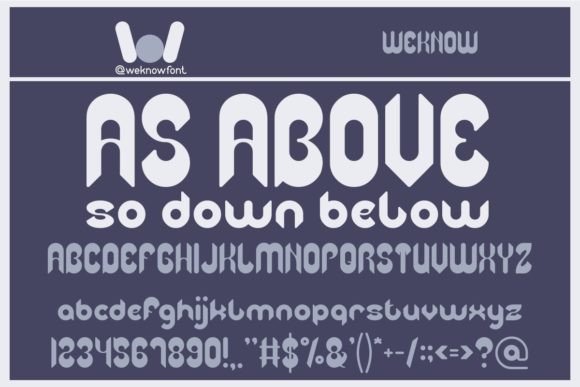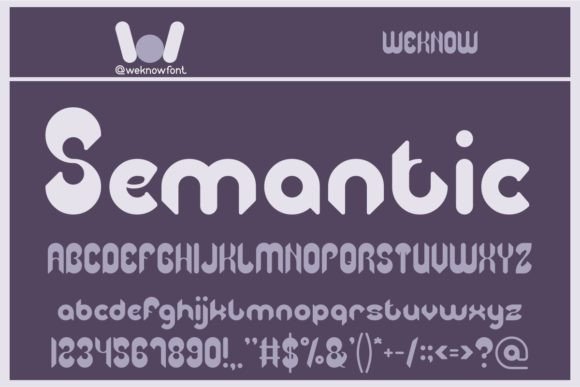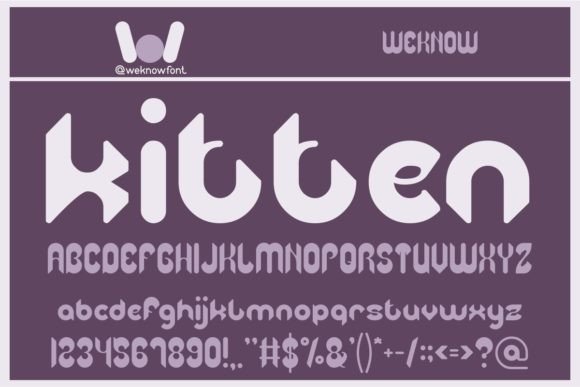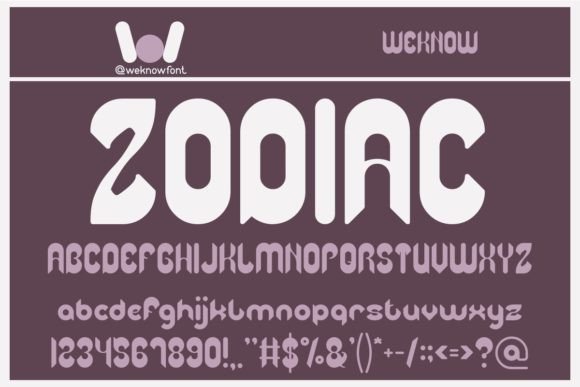
Introduction to High and Low Font
You’re scrolling through your social media feed, and suddenly, you come across a visually stunning graphic that catches your eye. The bold, modern typography is what sets it apart from the rest. The font used is none other than the trendy High and Low Font, a perfect blend of style and sophistication. Its unique characteristics make it a valuable asset for any designer looking to elevate their high-quality creative projects.
Whether you’re working on a logo, poster, or social media graphic, High and Low Font is sure to make your design stand out from the crowd. Its fresh, contemporary look is sure to impress, and its free availability makes it a must-have in any designer’s toolkit.
Key Features of High and Low Font
- Designed with a unique aesthetic, blending modern and vintage elements to create a distinctive and eye-catching visual identity.
- Perfect for designers working on a creative project that requires a touch of elegance and sophistication, such as branding, advertising, and editorial design.
Honest Review: High and Low Font
I recently came across the High and Low Font and was excited to dive in and see what it had to offer. As a designer, I’m always on the lookout for high-quality design resources that can elevate my creative projects.
The font is available for free download, which is a huge plus in my book. I appreciate when designers are transparent about their intentions and provide a free resource for the community. The font itself is a unique blend of modern and vintage elements, making it perfect for a wide range of design projects.
What works well with the High and Low Font is its versatility. It can be used for a variety of purposes, from branding and logos to editorial and display work. The font is also available with a transparent background, which makes it easy to layer over images and other design elements.
- ✨ Unique blend of modern and vintage elements
- ✨ Versatile and suitable for various design projects
⚠️ One potential limitation of the High and Low Font is its limited character set. While it’s a great font for headlines and titles, it may not be suitable for body text or longer blocks of text. Additionally, some users may find the font’s quirky style to be too bold or overpowering.
Overall, I’m impressed with the High and Low Font and would definitely recommend it to fellow designers. It’s a great addition to any design resource library, and I appreciate the designer’s willingness to share it with the community.
How to Use High and Low Font
The High and Low Font is a versatile design resource ideal for high-quality creative projects. With its unique aesthetic, this font is perfect for adding a touch of sophistication to your designs.
To get the most out of the High and Low Font, try pairing it with a transparent background for a clean and modern look. Experiment with different font sizes and styles to create a visually appealing design.
The High and Low Font is perfect for:
Designing luxury branding materials, such as logos and business cards.
Creating high-end digital products, such as e-books and magazines.
Adding a touch of elegance to wedding invitations and stationery.